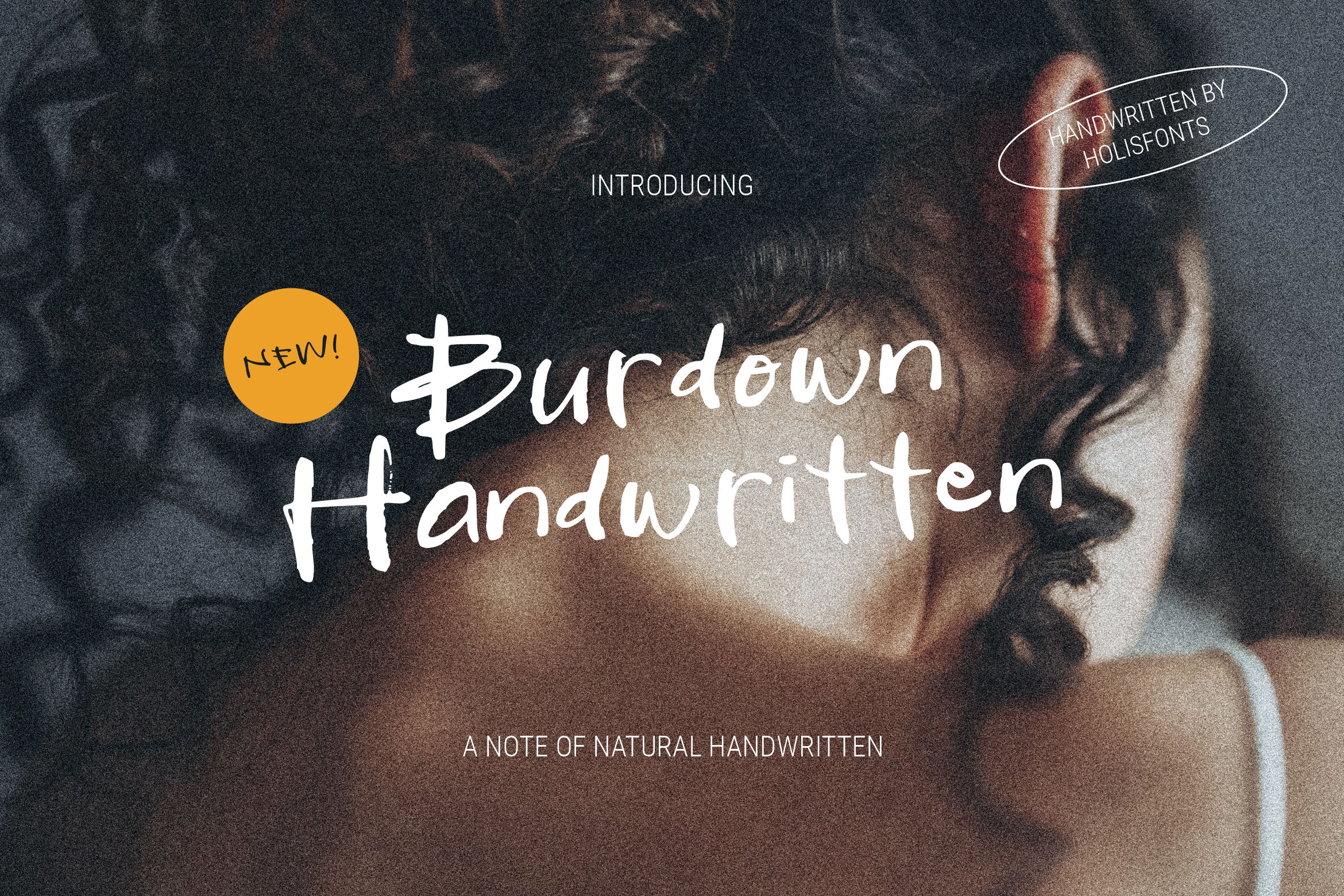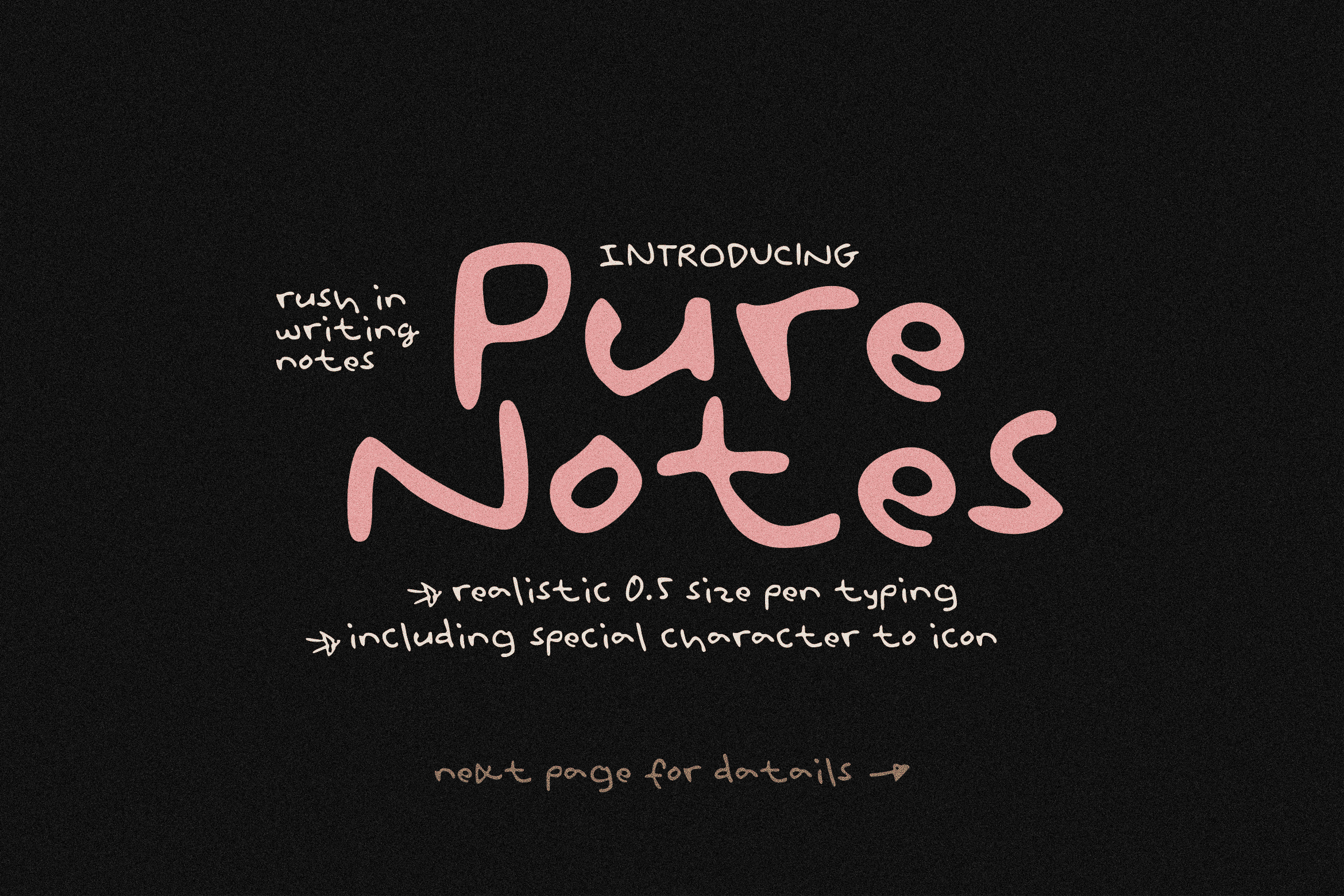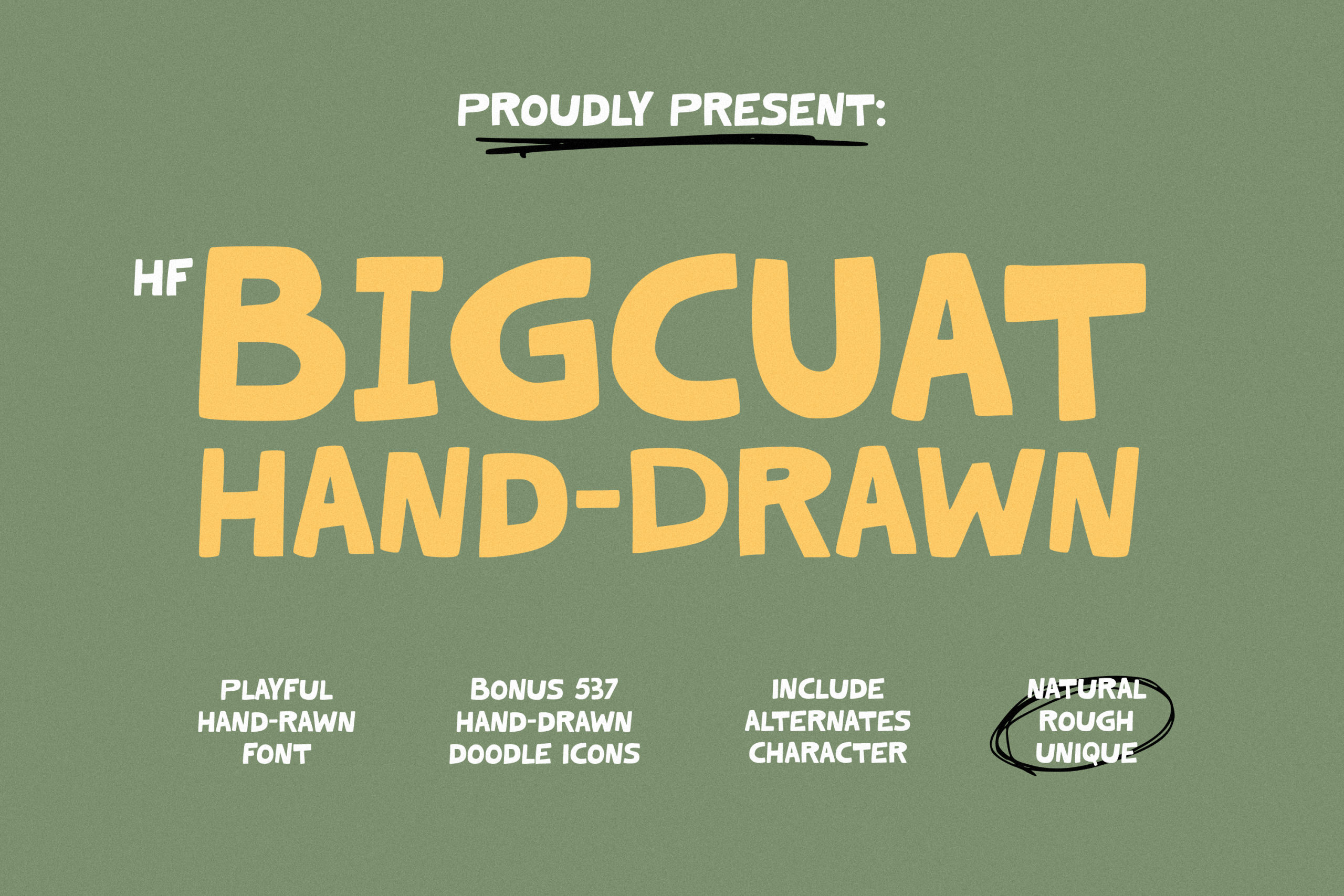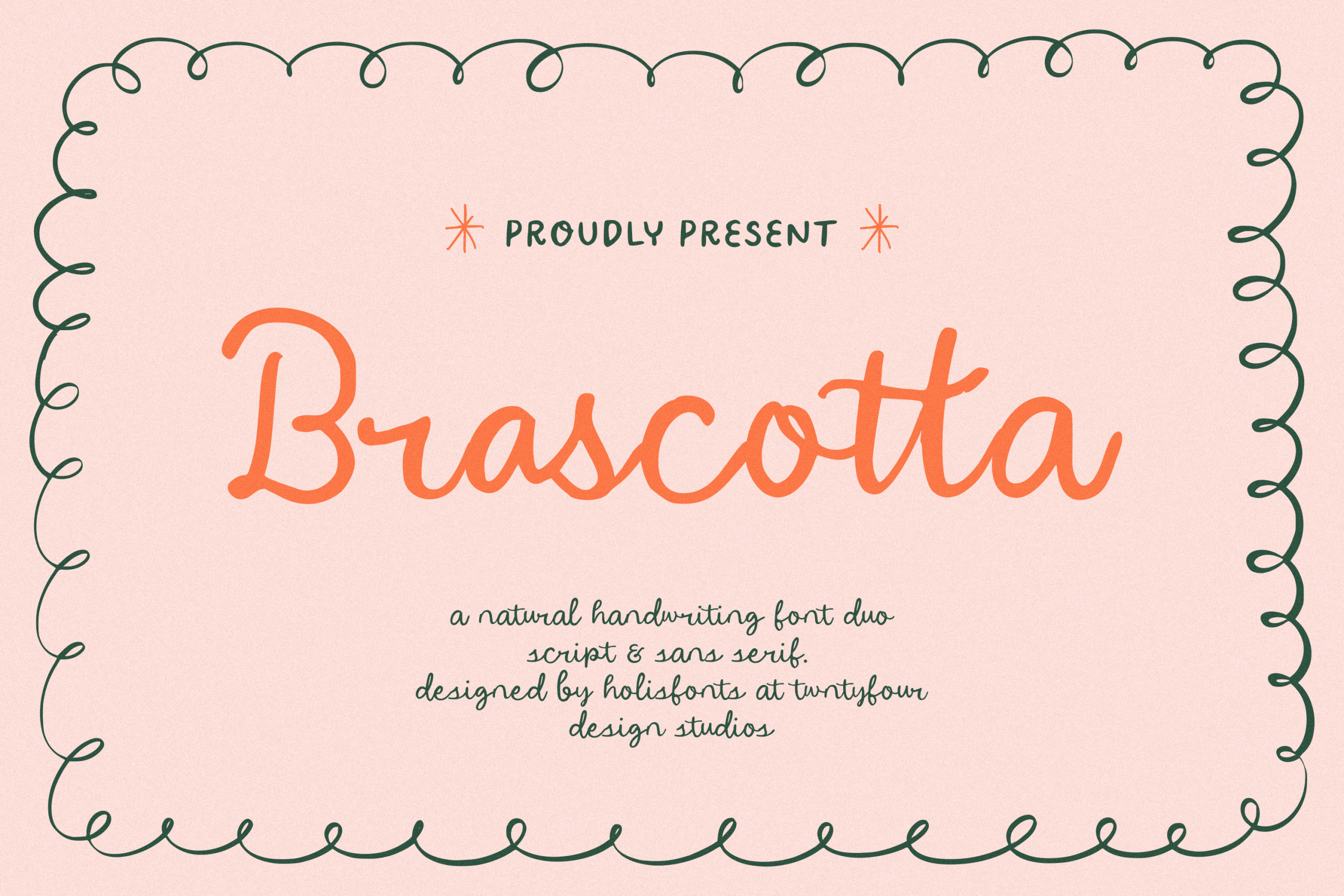
5 Handwriting Fonts That Level Up Your Instagram Content
Let’s be real cool visuals on Instagram aren’t just about great photos or color schemes. The font you use matters too. Especially if you’re a content creator, small business owner, or beauty brand, using the right handwriting font can instantly make your content feel more personal, warm, and aesthetic.
Here are 5 handwriting fonts from Holis Fonts that are perfect for giving your Instagram posts that extra charm:
1. Purenotes – Natural & Realistic
If you love jotting down quick thoughts with a 0.5 pen on paper, Pure Notes will feel super familiar. This font captures that raw, honest feeling of writing fast—like when ideas hit and you don’t want to lose them.
✏️ What Makes Pure Notes Special?
• Raw & real vibe – looks just like quick handwriting
• 0.5mm pen texture – thin, dense, and still totally readable
• Includes special characters & icons – great for notes, doodles, or extra expression
• Perfect for journaling content, Instagram quotes, digital notes, or any design that needs a human touch
💖 Why You’ll Love It
This font isn’t just about style it’s all about the feeling. When you use Pure Notes, your content instantly feels more real, more casual, and more relatable. It’s perfect for those who love being authentic while still keeping things aesthetic.
2. HF Bigcuat – Impressive and Bold
Bigcuat Hand-Drawn – Fun Font with 537 Bonus Doodles!
Looking for a font that’s bold, playful, and full of personality? Bigcuat Hand-Drawn is here to shake up your creative projects. This chunky hand-drawn typeface gives off a fun, quirky vibe—perfect for anything from Instagram posts to kids’ packaging and DIY-inspired designs.
✏️ What Makes Bigcuat So Cool?
• Hand-crafted feel – rough edges, natural strokes
• Bonus 537 doodle icons – included in the font file!
• Alternate characters – so your text never feels stiff or repetitive
• Perfect for: social media, posters, YouTube thumbnails, packaging, stickers, and more
Whether you’re a content creator, teacher, illustrator, or small biz owner, Bigcuat makes your visuals pop in the most fun way possible.
💖 What’s Inside?
Yep, it’s not just the letters. You’ll get a huge set of 537 doodles packed right into the font! From smileys, stars, arrows, and music notes to fire, skulls, and speech bubbles—this font is basically a full-on creative toolkit.
3. Brascotta Font Duo – Natural Script
Introducing Brascotta, a charming handwriting font duo that blends the beauty of a smooth script with the simplicity of a friendly sans serif. Designed to bring warmth and personality to your creative projects, Brascotta is perfect for anyone looking for a handcrafted, natural aesthetic.
💖 What Makes Brascotta Special?
Brascotta was created to mimic the relaxed, natural flow of real handwriting. The script font has a casual, flowing rhythm ideal for logos, headers, and statement quotes—while the sans serif version offers a clean, quirky structure that’s perfect for subtitles, body text, or playful designs. Besides being suitable for Instagram posts, the Brascotta font is also suitable for:
• Wedding invitations & stationery
• Greeting cards & DIY projects
• Handmade product branding
• Packaging design
• Social media graphics & quotes
• Logos & identity design with a friendly tone
✏️ Design Features:
• Decorative wavy borders in previews enhance the playful mood
• Casual and friendly handwriting style
• Great for retro-modern, feminine, or whimsical designs
• Soft letterforms with a relaxed, handcrafted feel
4. Wallnote – Messy & Relistic
Raw. Loud. Human.
Wallnote is a bold handwritten font that doesn’t try to be neat and that’s exactly what makes it unforgettable. Inspired by impulsive wall notes, fast scribbles, and loud thoughts, Wallnote brings a raw, expressive energy to every design.
Whether you’re writing a rebellious quote, an album title, or a bold personal statement. Wallnote is made to stand out.
💖 Why Designers Love Wallnote:
Because it feels like a scream on paper.
Wallnote isn’t trying to impress with perfection. It’s here to make a mark—to feel wild, urgent, and unapologetically human. The swash set gives you even more freedom to play, underline, or shout your message visually.
5. Burdown – Natural Handwritten
Say hello to Burdown Handwritten, a typeface that captures the raw charm of casual handwriting—imperfect, expressive, and effortlessly human. Designed to bring warmth and emotion to your visual storytelling, Burdown is the kind of font that feels like a handwritten note passed to a friend.